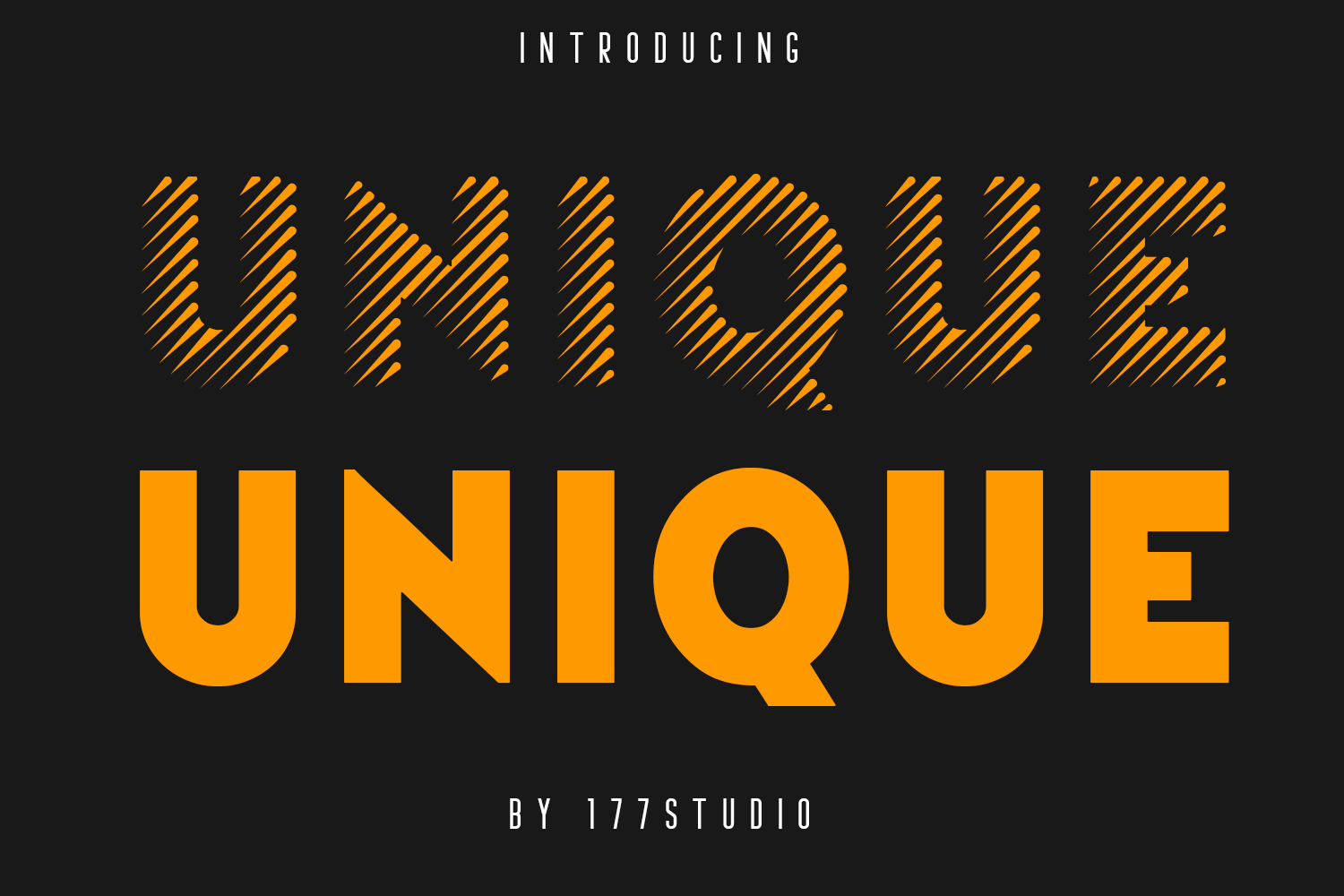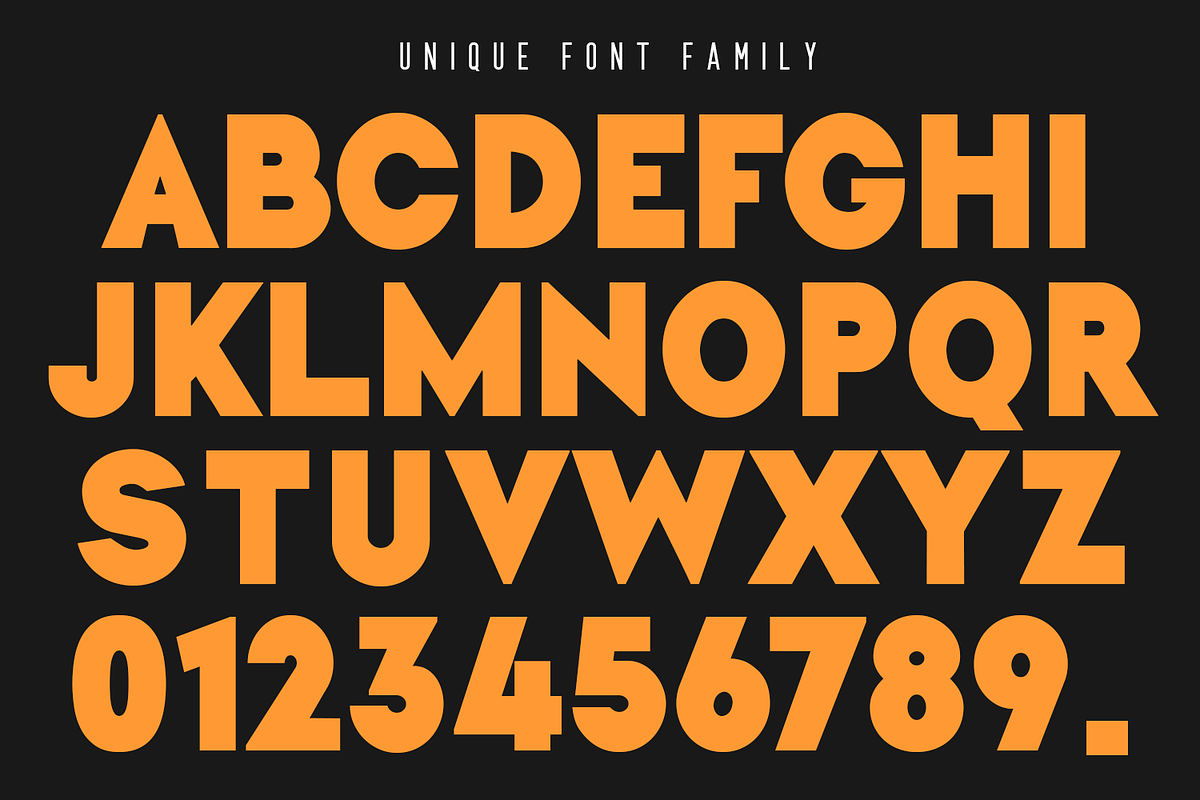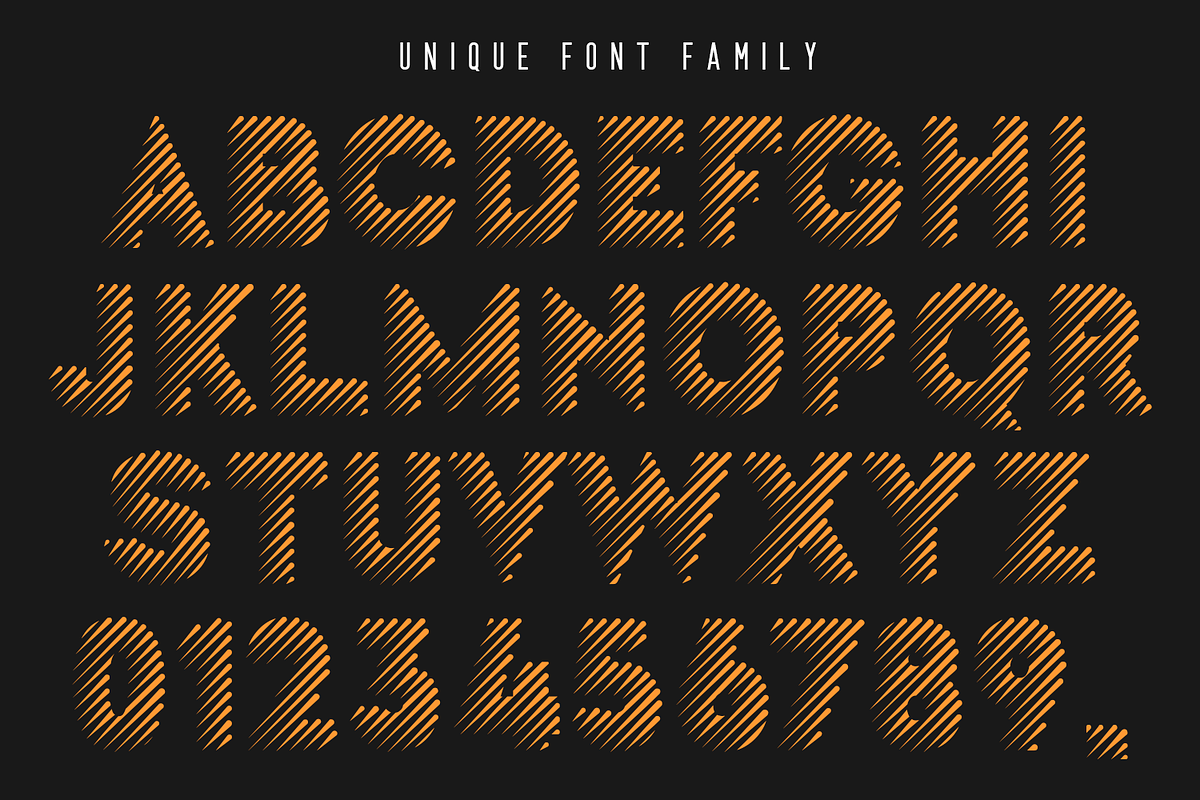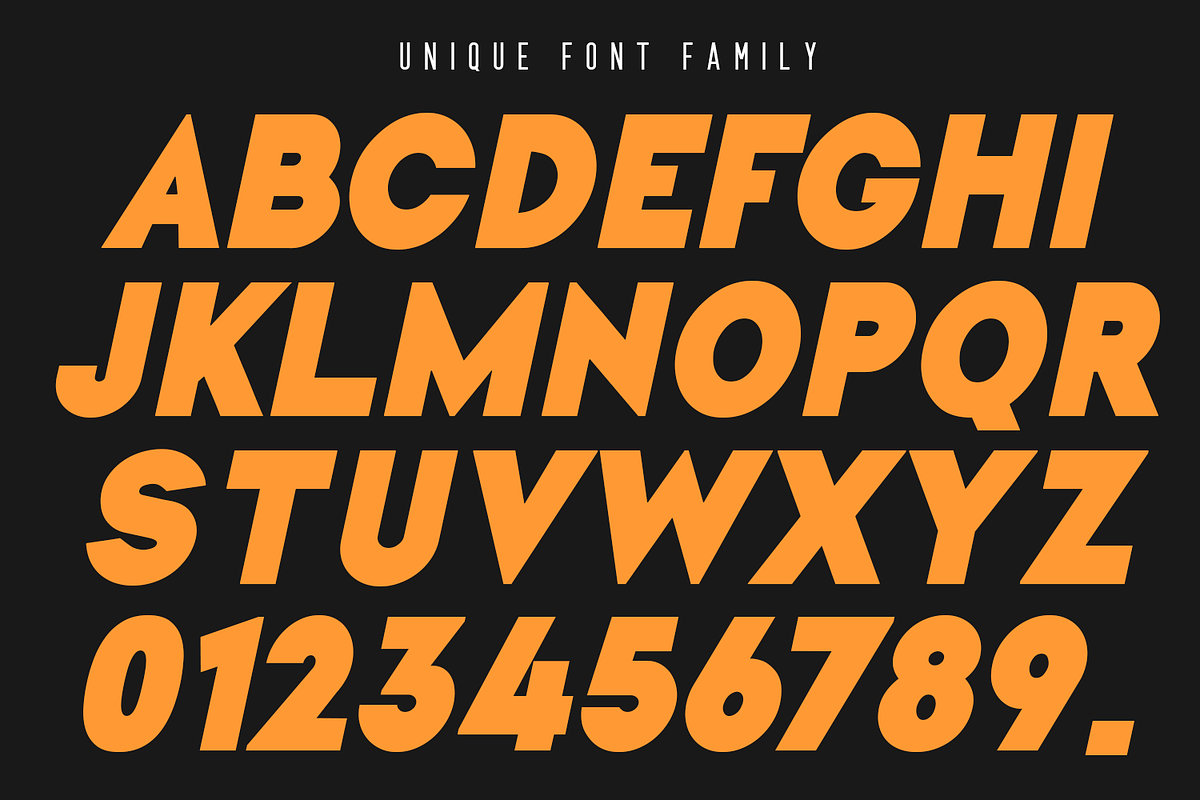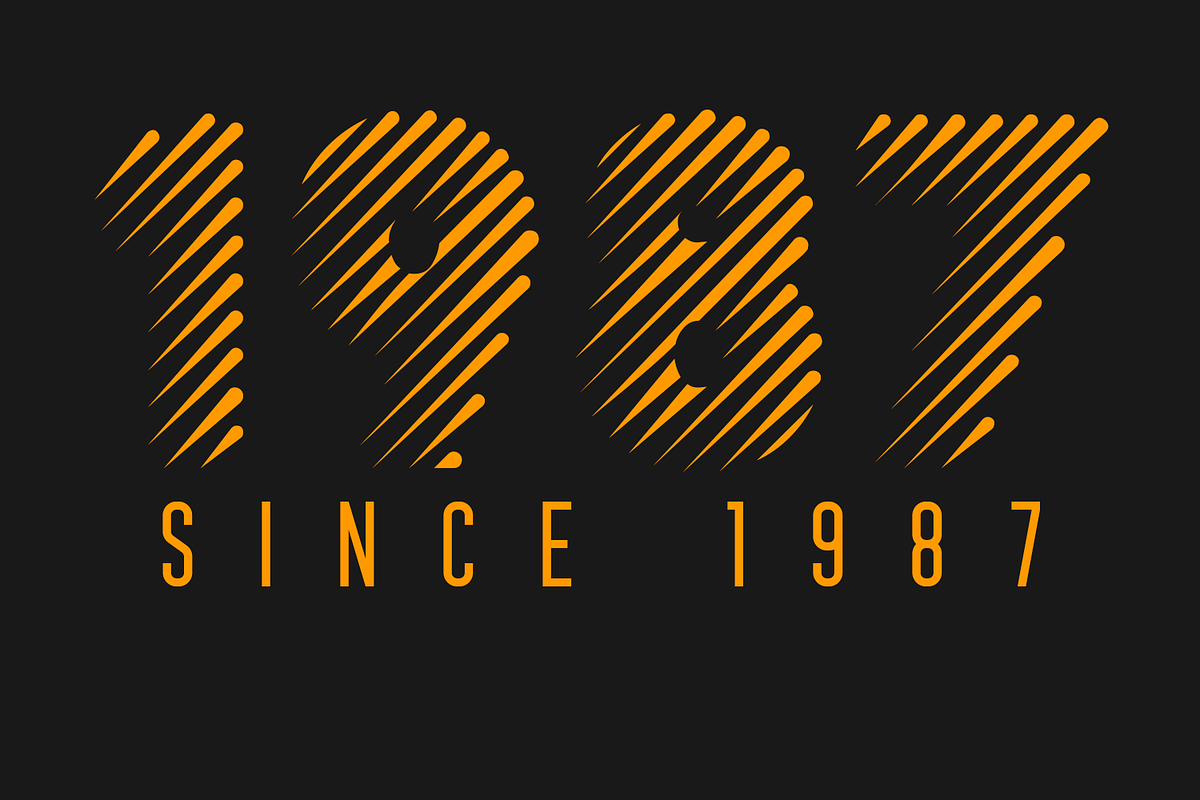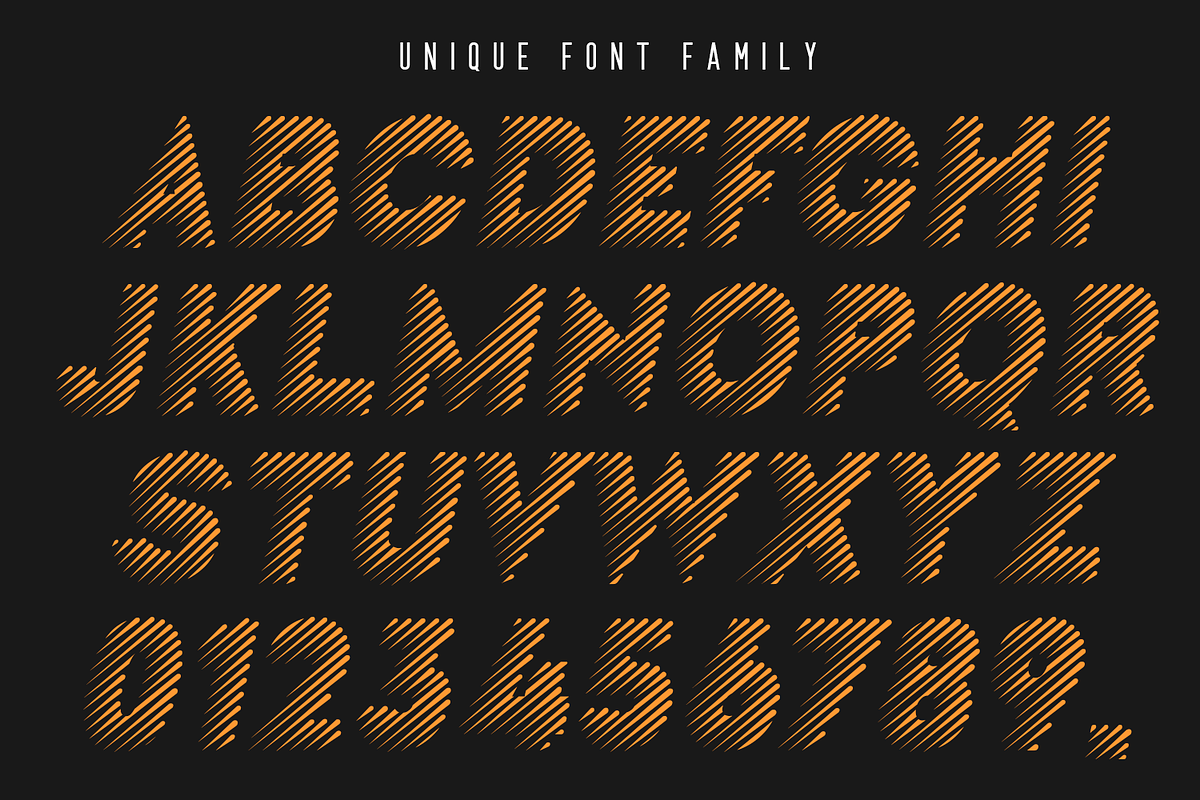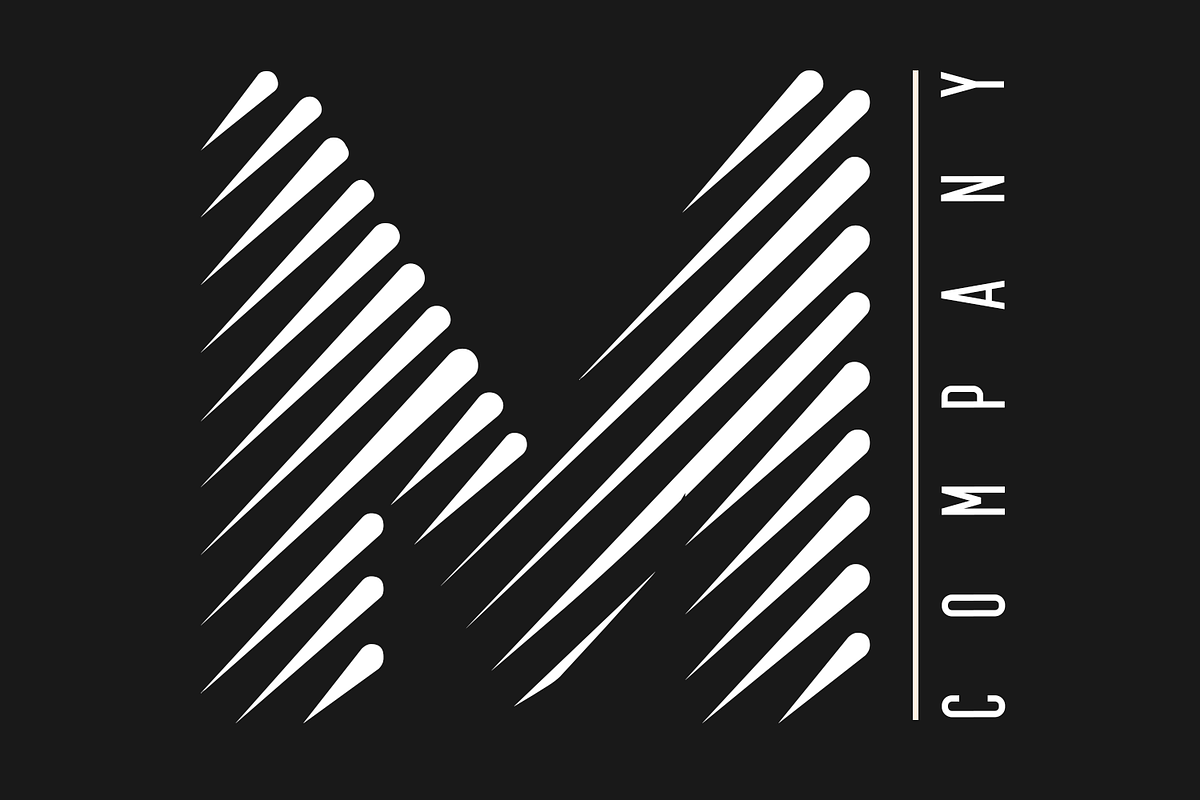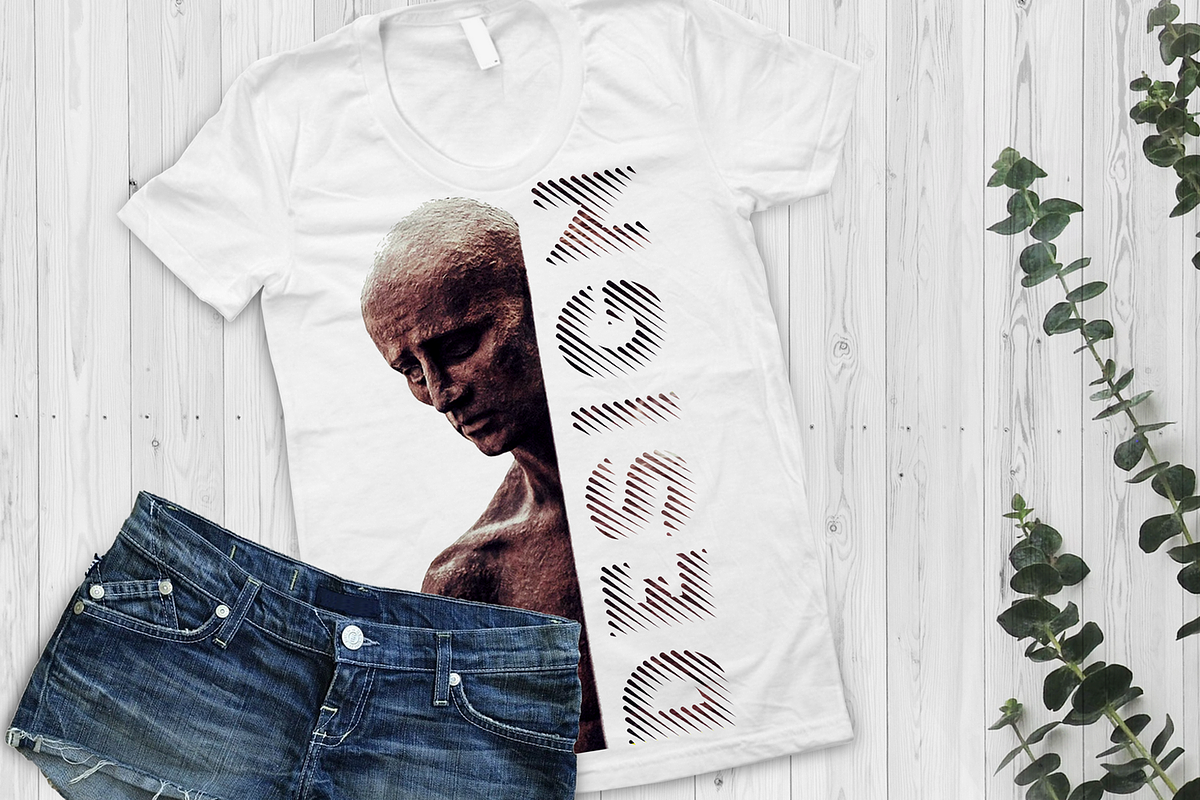
Unique Stripes Font
Unique Stripes Font Family is extra-loud bold halftone striped modern font, rounded stripes font that is perfect for a wide range of display purposes! Unique is perfect for designers looking to leave an impression. A simple but significant.
Made for giving titles an extra punch, It’s packs a full set of capitals, numbers and punctuation. Be it gigs, sports events, logo designs or humble lost cat posters, It’s was made to bring impact.